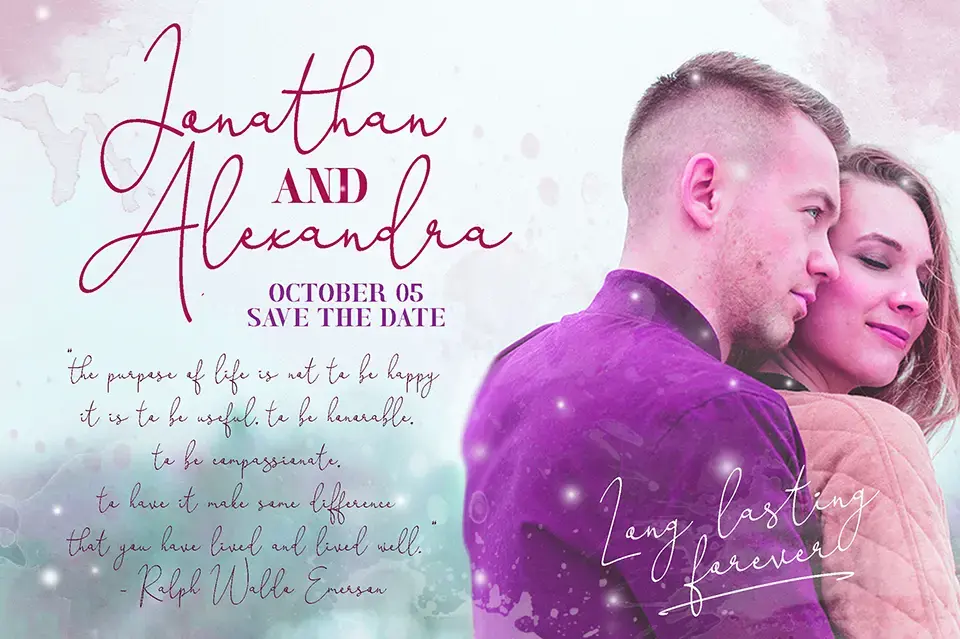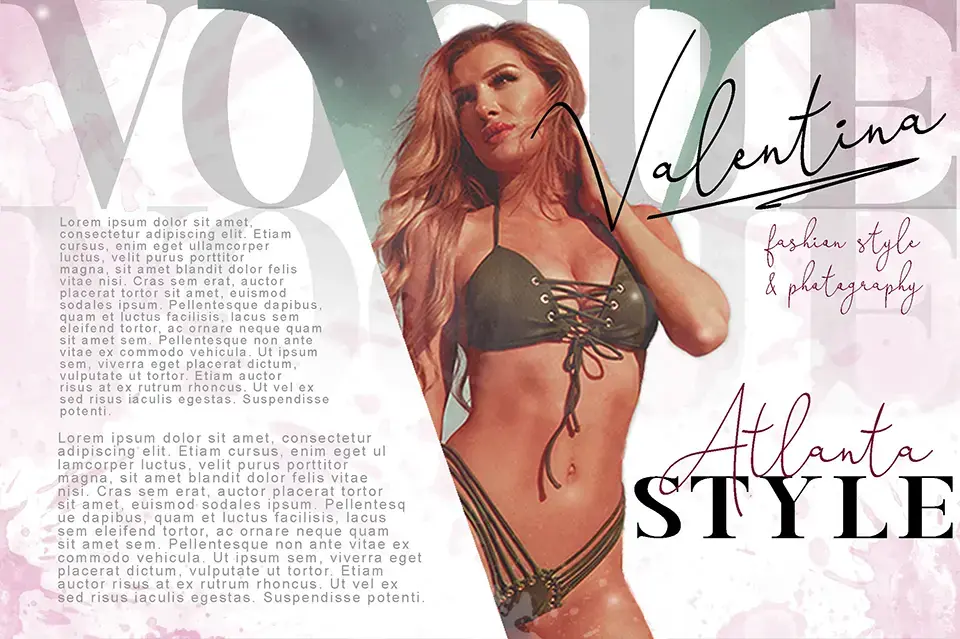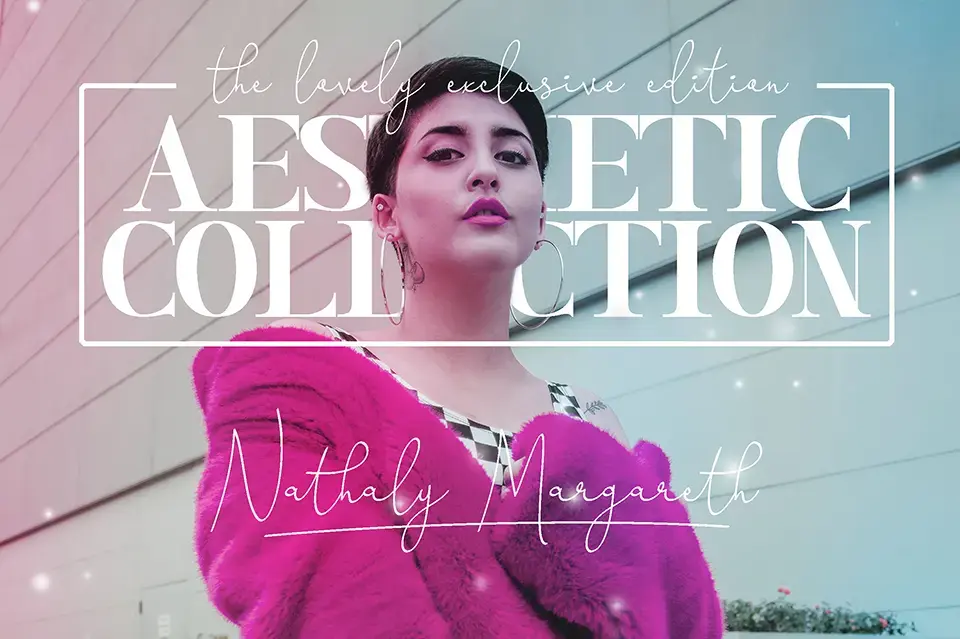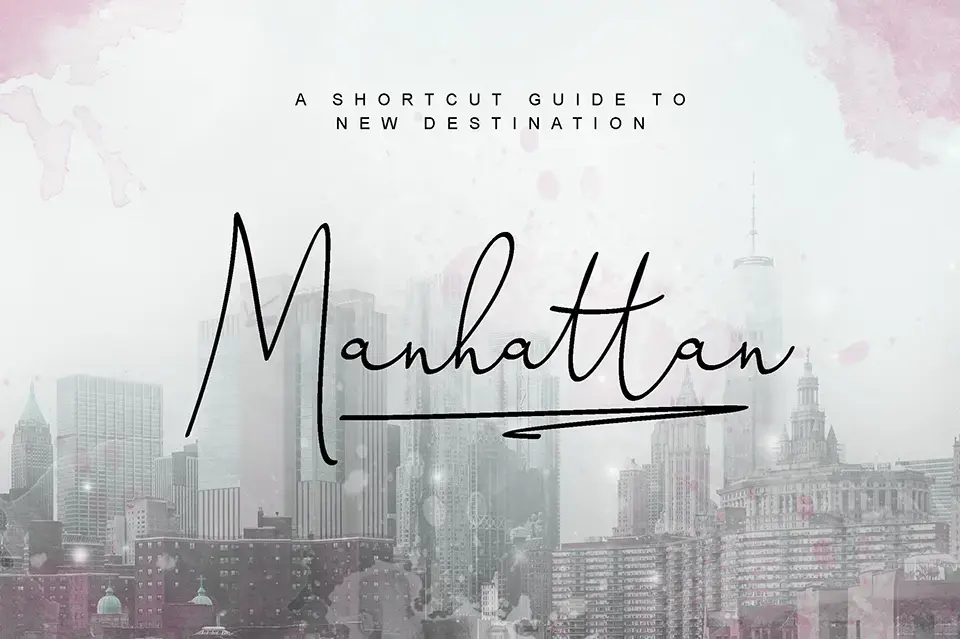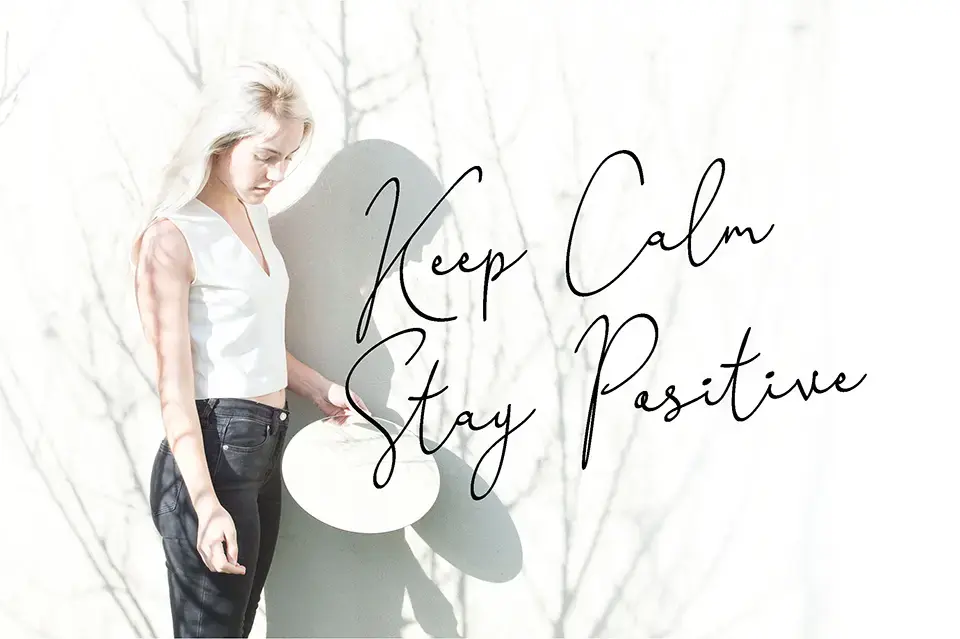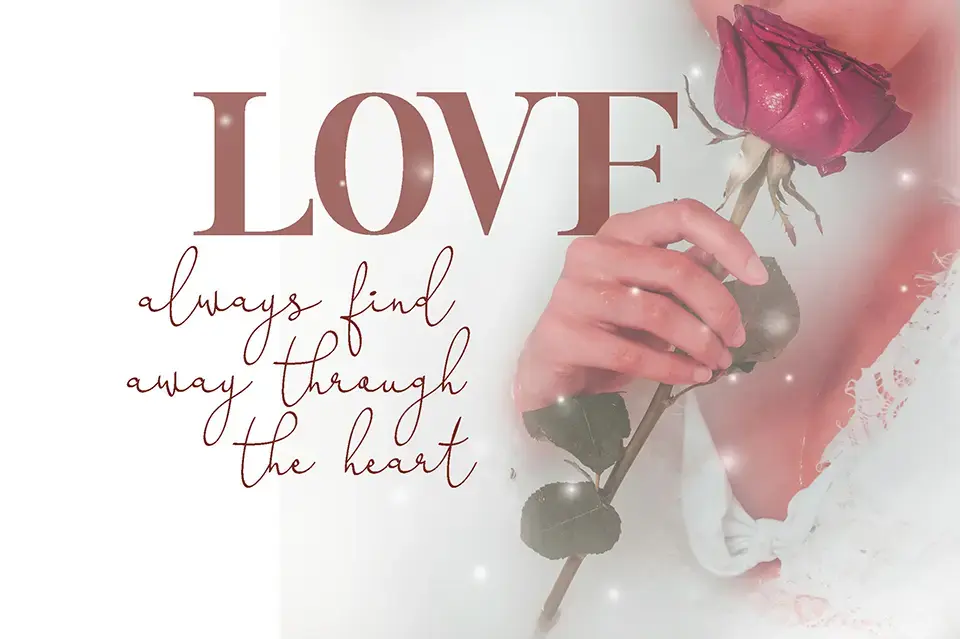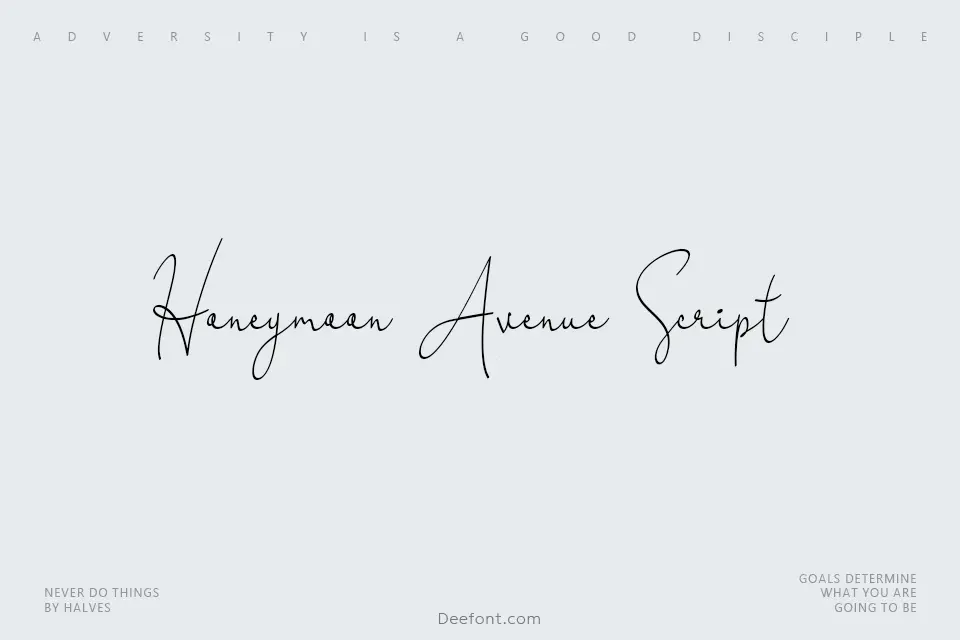
Honeymoon Avenue Script Font
Honeymoon Avenue Script Font is a smooth, flowing handwritten script that pairs elegant curves with subtle bouncy rhythm, creating a romantic, personal feel. Perfect for wedding invitations, save-the-dates, feminine branding, signatures, logo marks, packaging, quotes, and social media posts needing a soft, modern calligraphic touch.